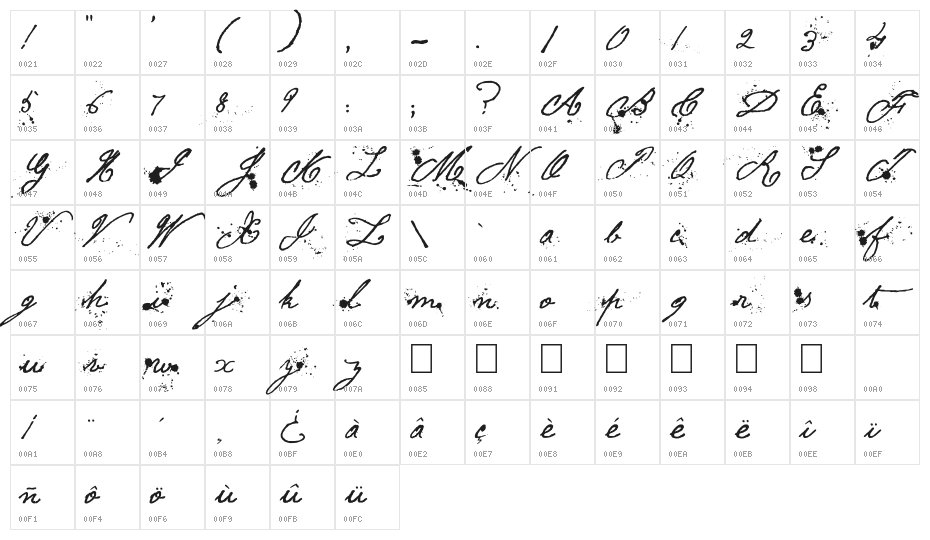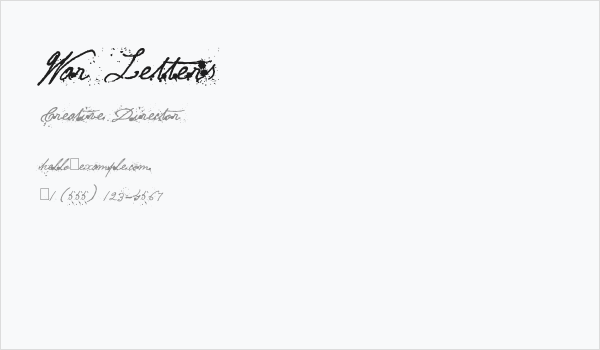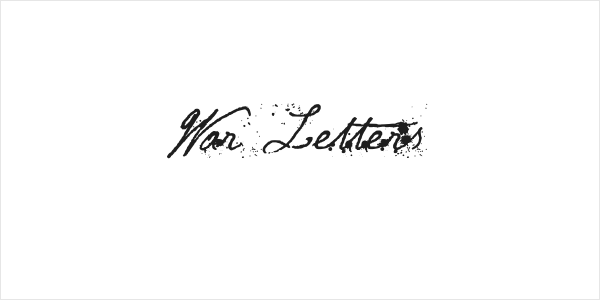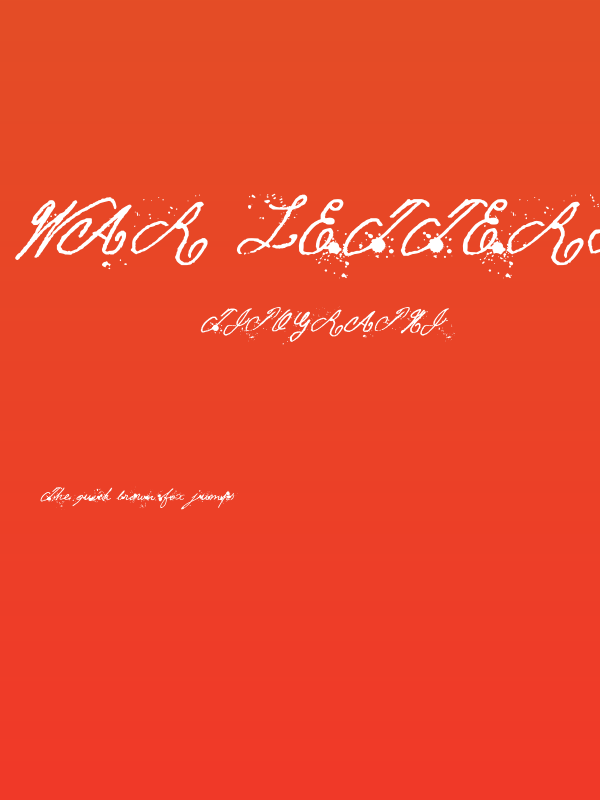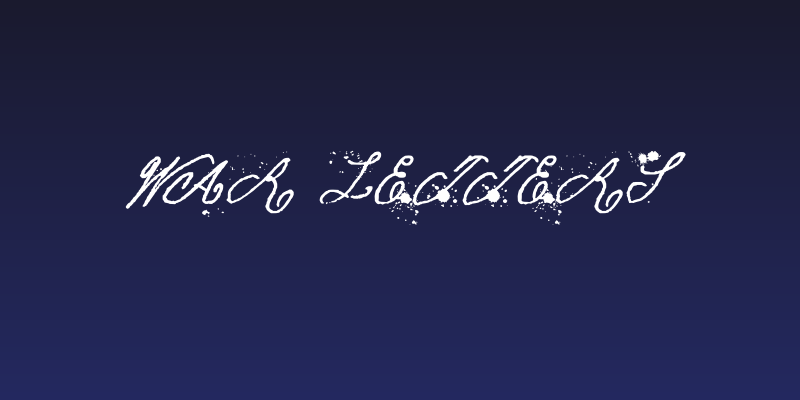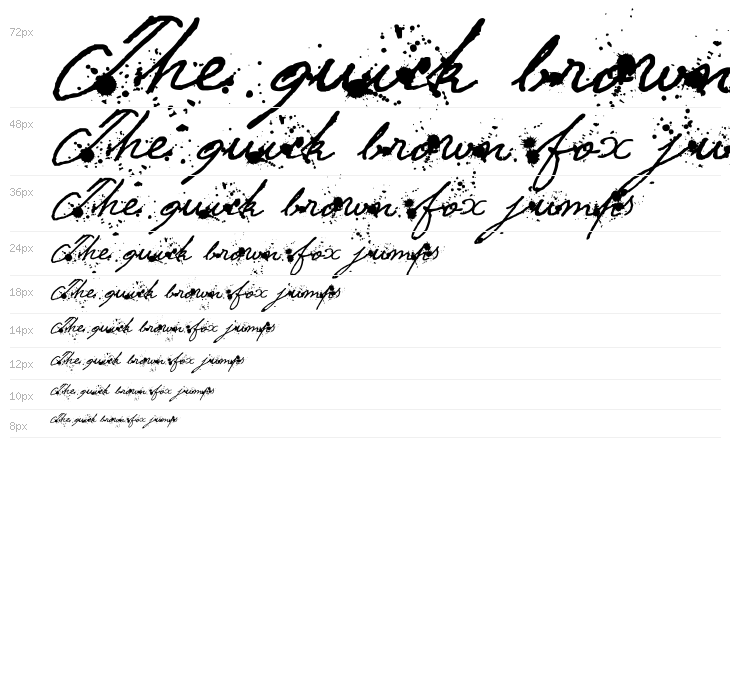
War Letters Font
War Letters Description
This font exudes a raw, expressive style with its splattered ink effect, reminiscent of handwritten letters from a bygone era. The characters are fluid and dynamic, with a cursive script that suggests motion and emotion. Each letter is uniquely crafted, featuring varying stroke widths that add to its artistic flair. The uppercase and lowercase letters maintain a consistent style, while the numbers and special characters integrate seamlessly into the overall design. The splatters give it a rugged, almost rebellious feel, making it stand out as a bold statement piece.
| Use Case | Logos, Artistic projects, Invitations |
| Proposed Projects | Ideal for projects that require a personal touch, such as invitations, artistic posters, or album covers. It can also be used in branding for creative industries or in designs that aim to evoke nostalgia or emotion. |